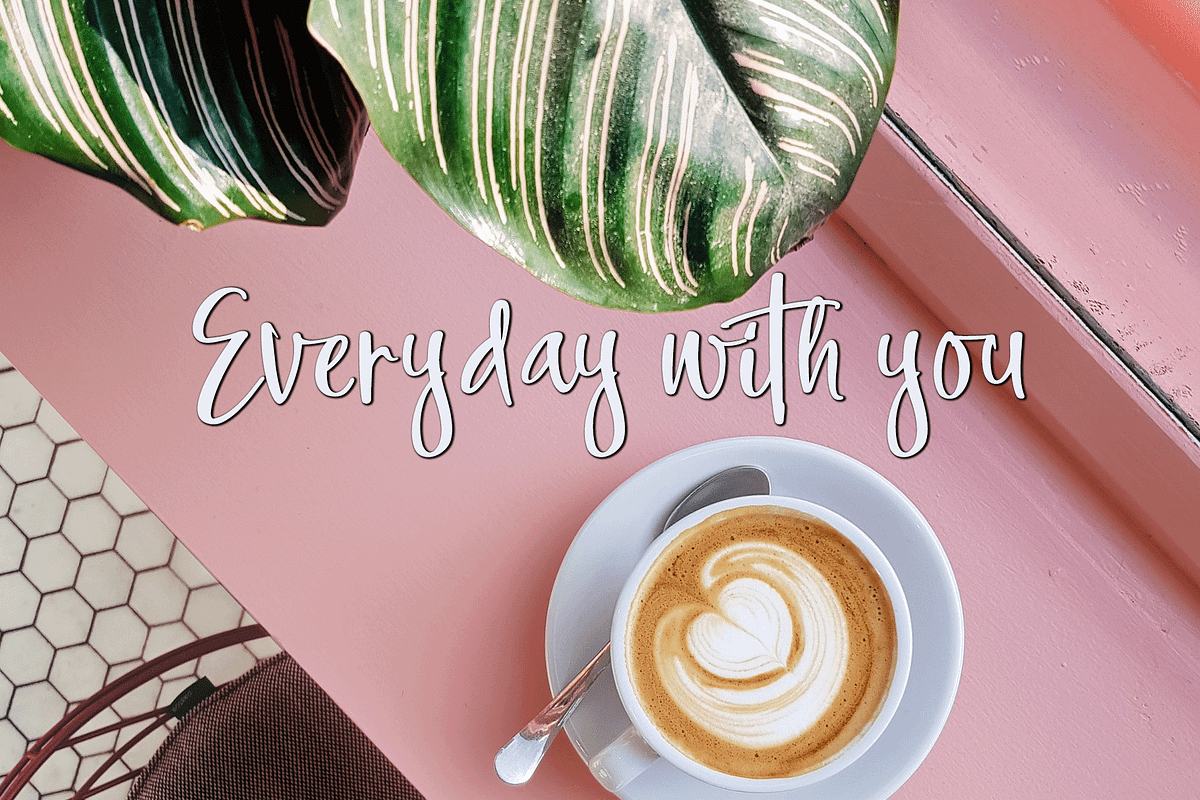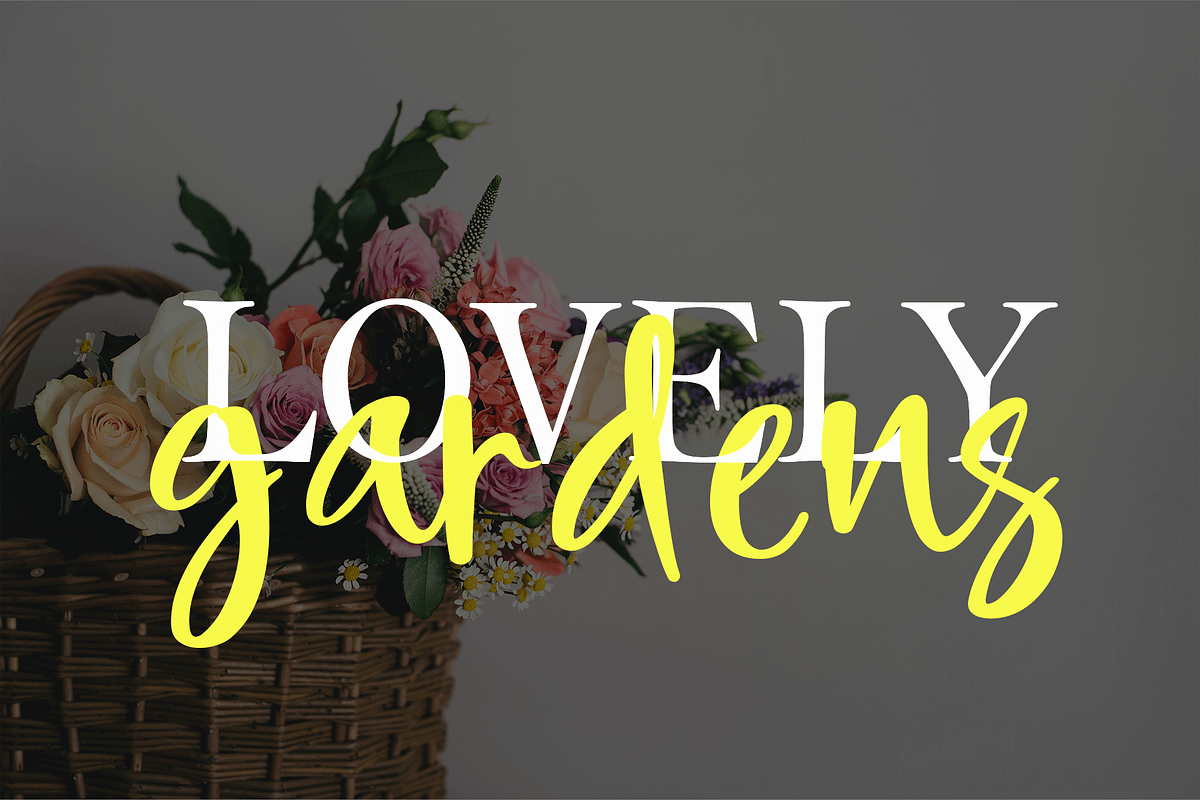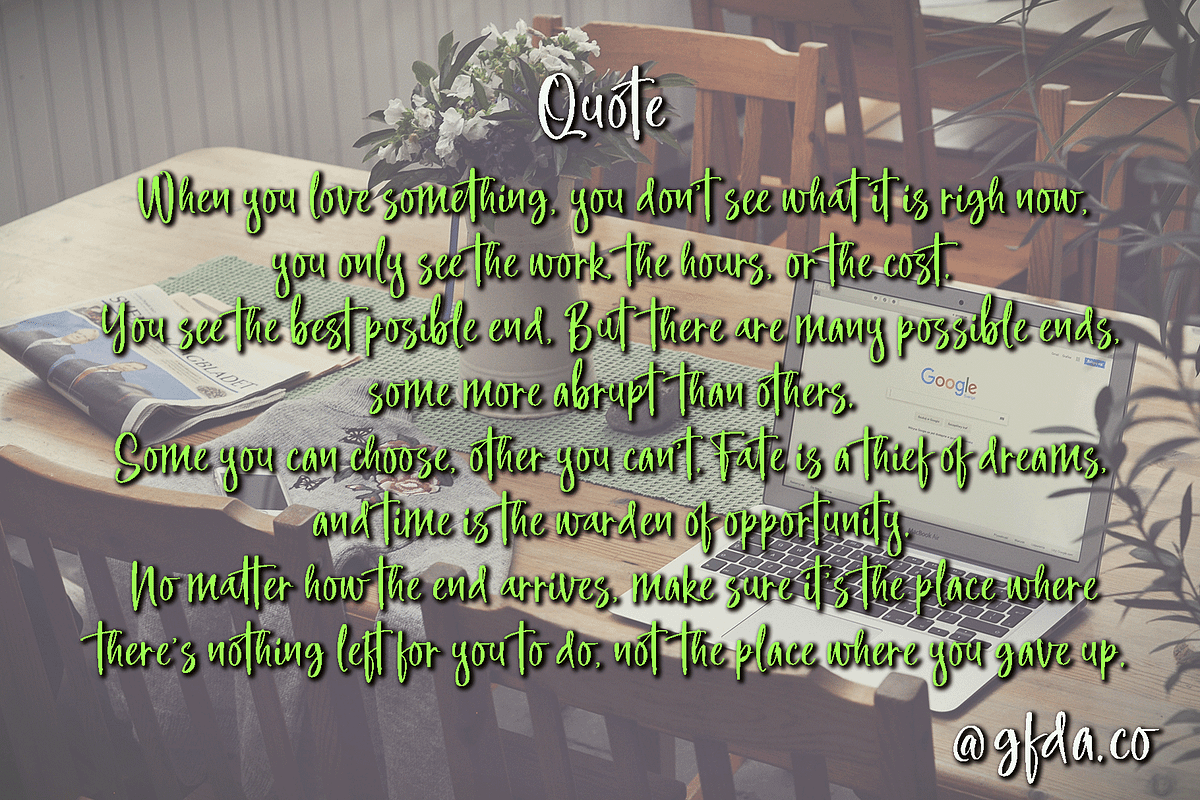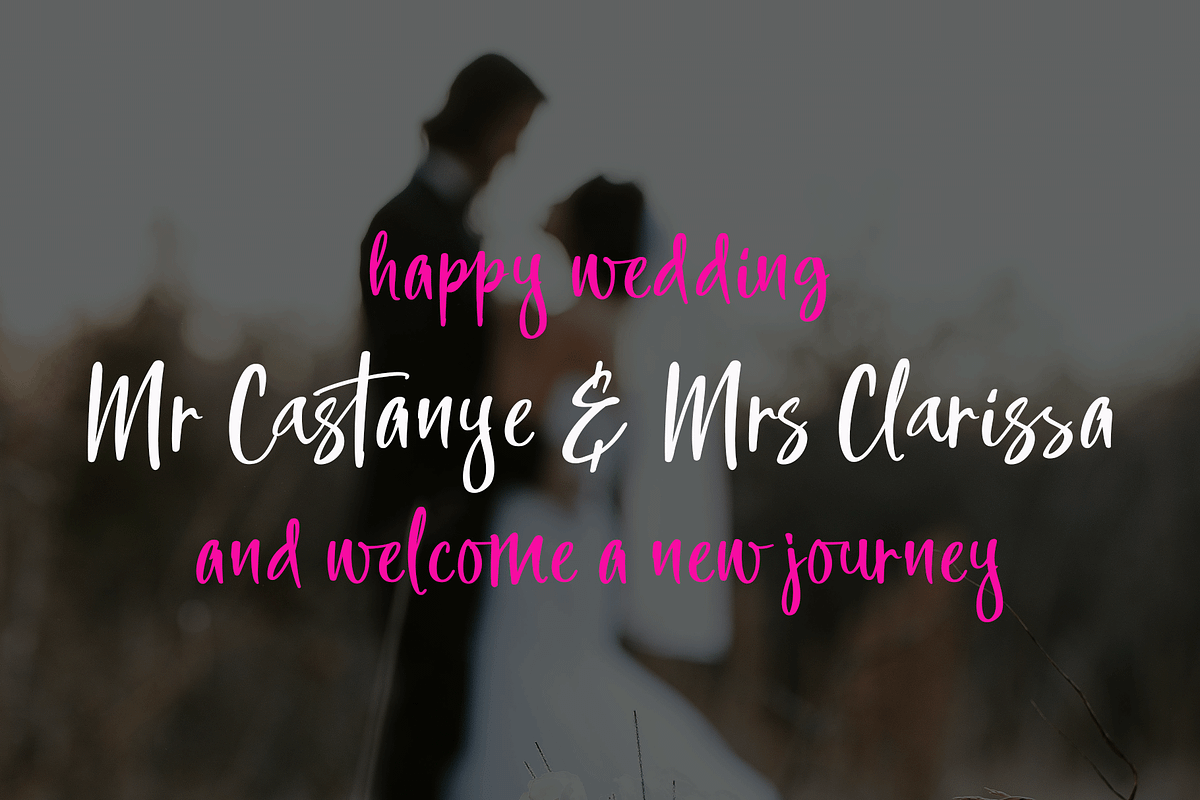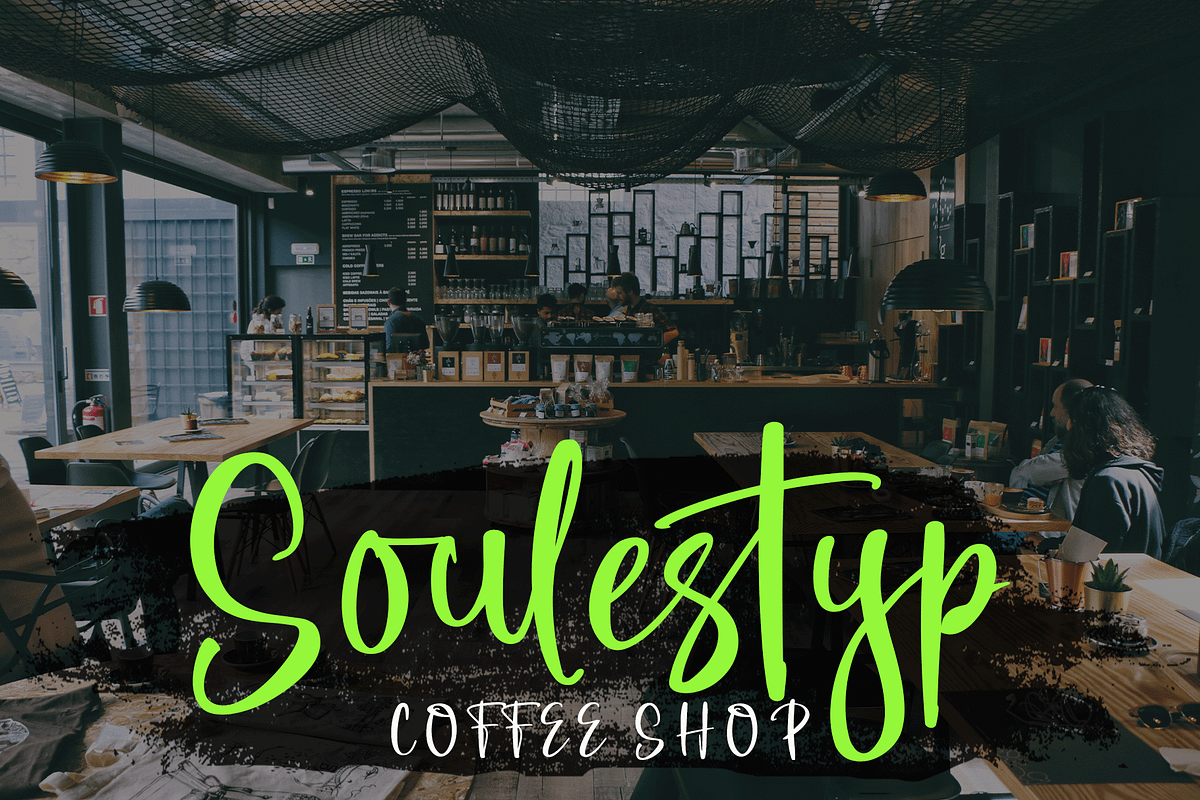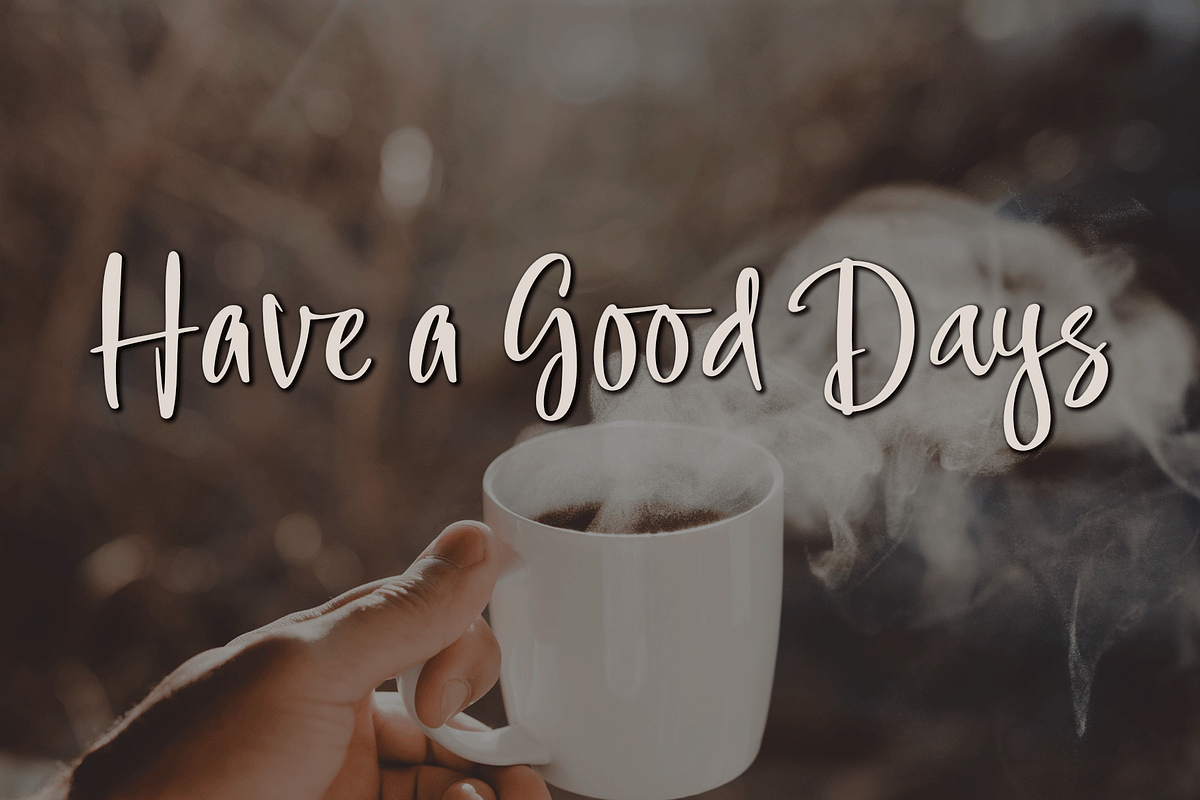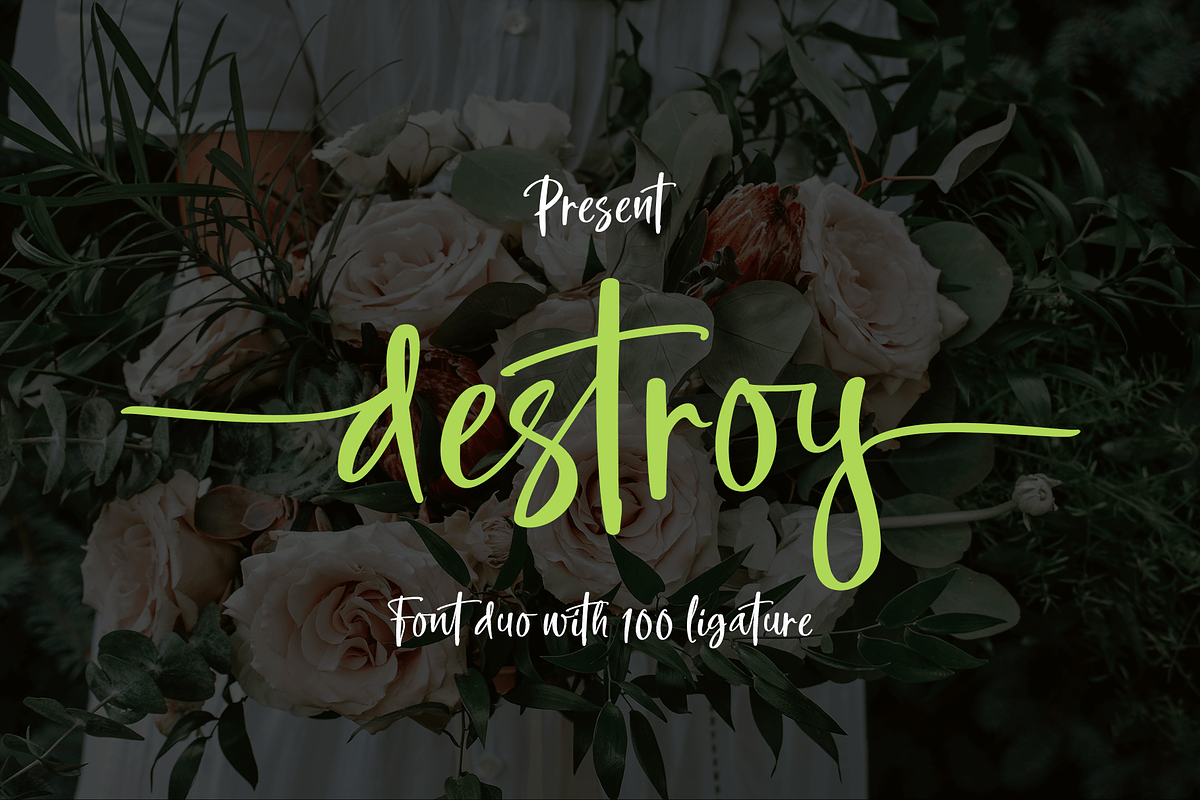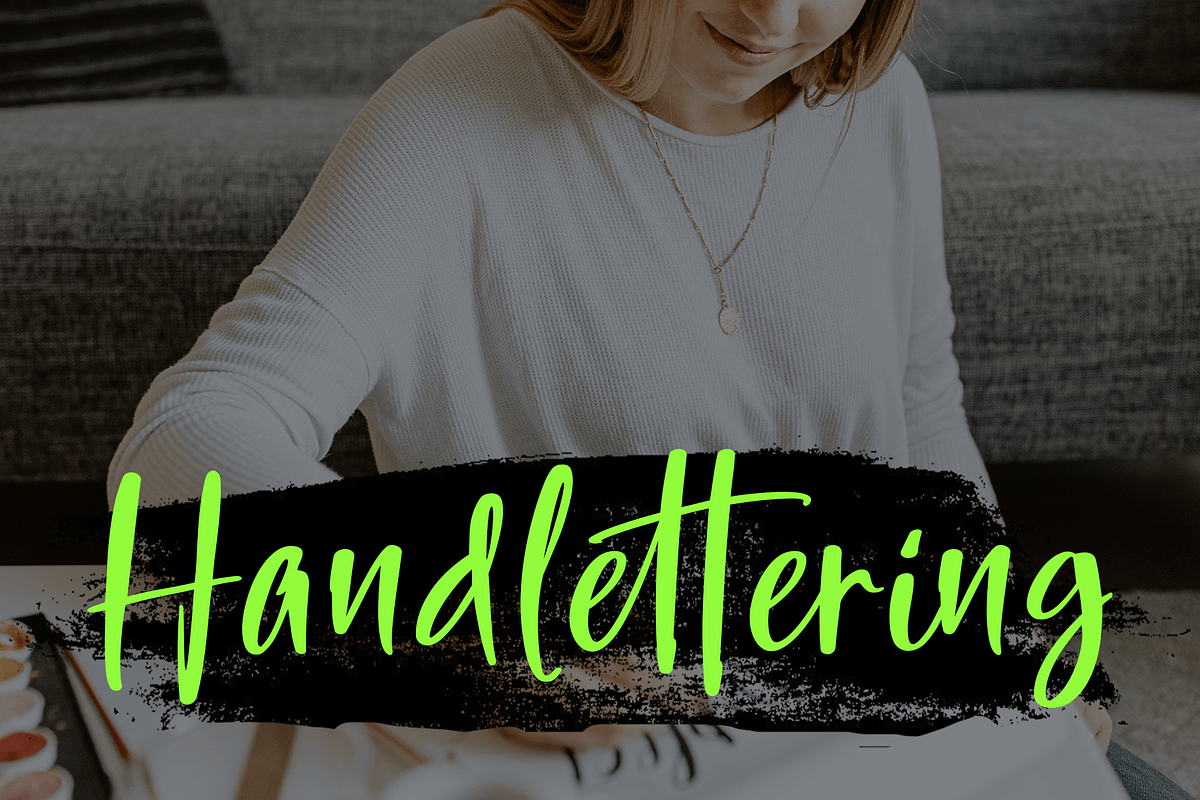
Destroy Duo With 100 Ligature
INTRODUCING
Destroy Duo is handwritten font with a modern Brush feel.
Destroy Duo is perfect for modern projects, headings, blogs, logos, brandings, web designe, card, coffe shop, t-shirt, invitations and more!